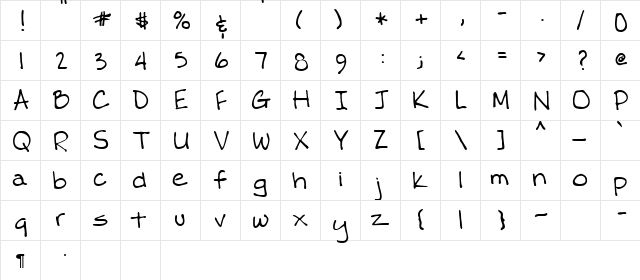
Dik Regular
Design Context for Dik Typeface
Dik is a composed and adaptable typeface that performs quietly and consistently across a wide range of design contexts.